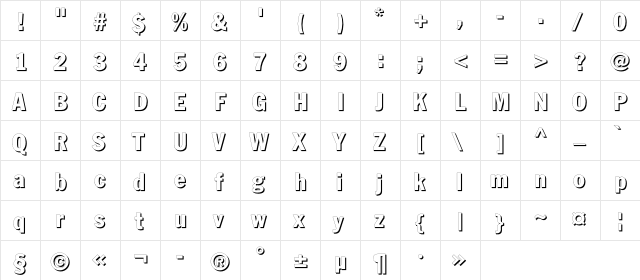
FagotCondShadowC Regular
Design Context for FagotCondShadowC Typeface
FagotCondShadowC is built around its visual character rather than neutral utility — its distinctive forms are designed to make an impression at display sizes.
Font Pairing: Pair with a clean neutral sans-serif for body copy to let FagotCondShadowC's character lead without overwhelming the composition.
Pro Tip: Treat FagotCondShadowC as the centrepiece of your typographic hierarchy. One strong heading set in a decorative face can carry an entire layout.